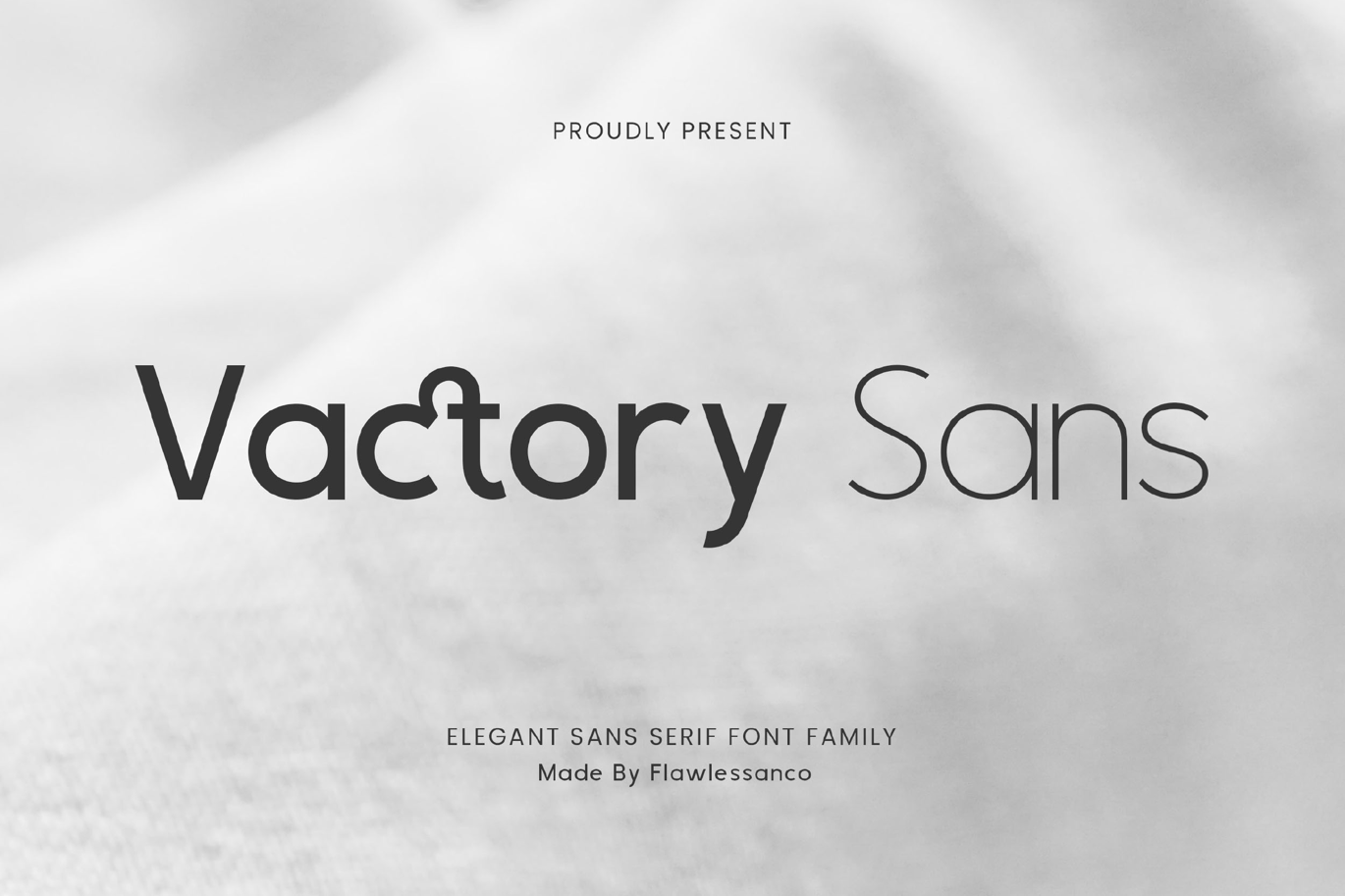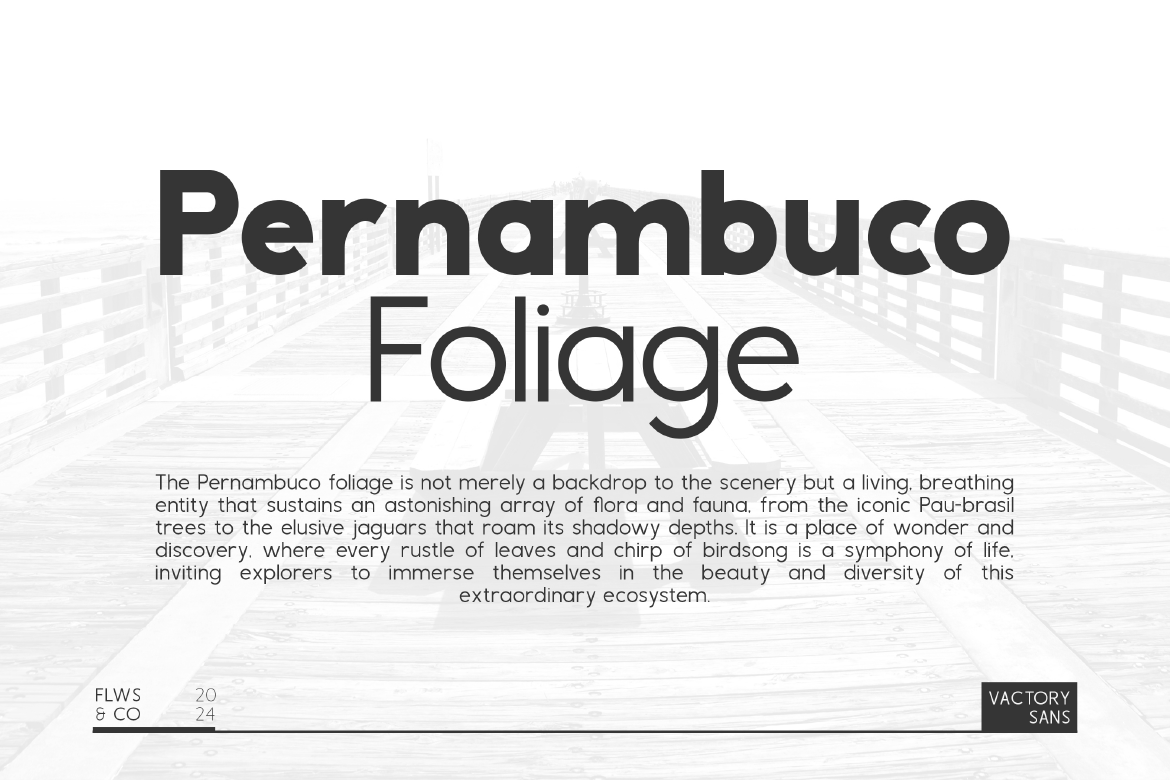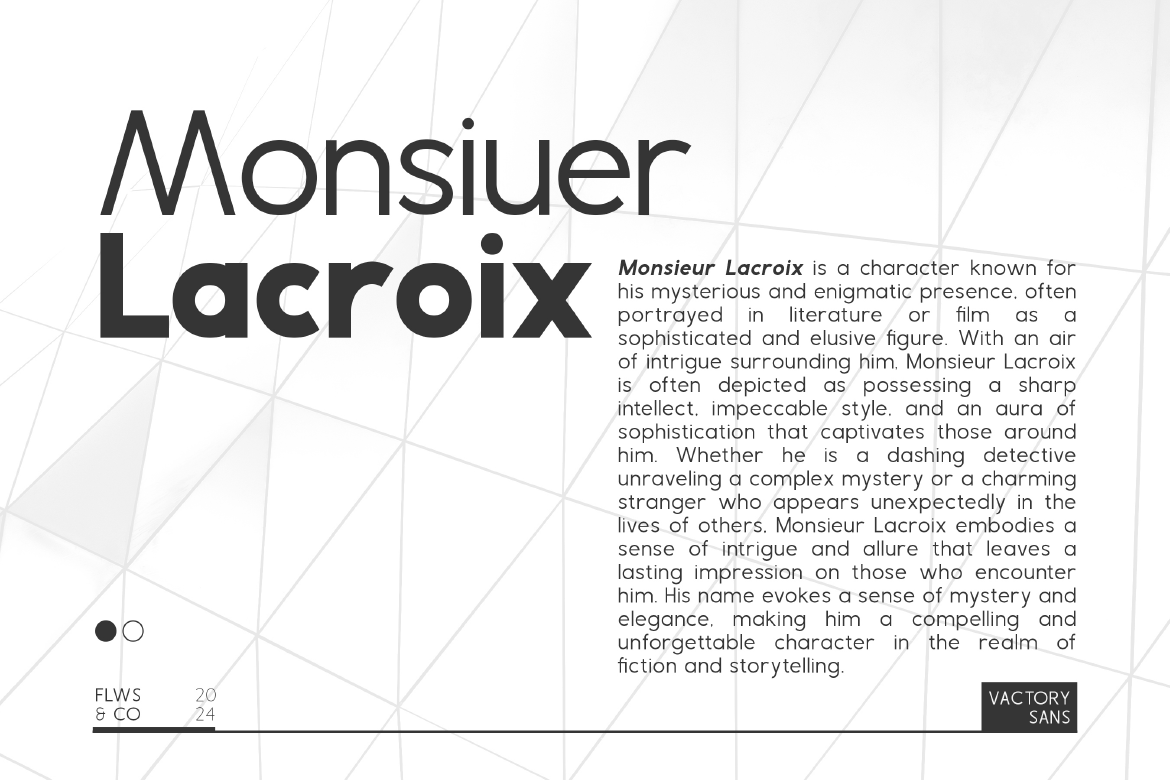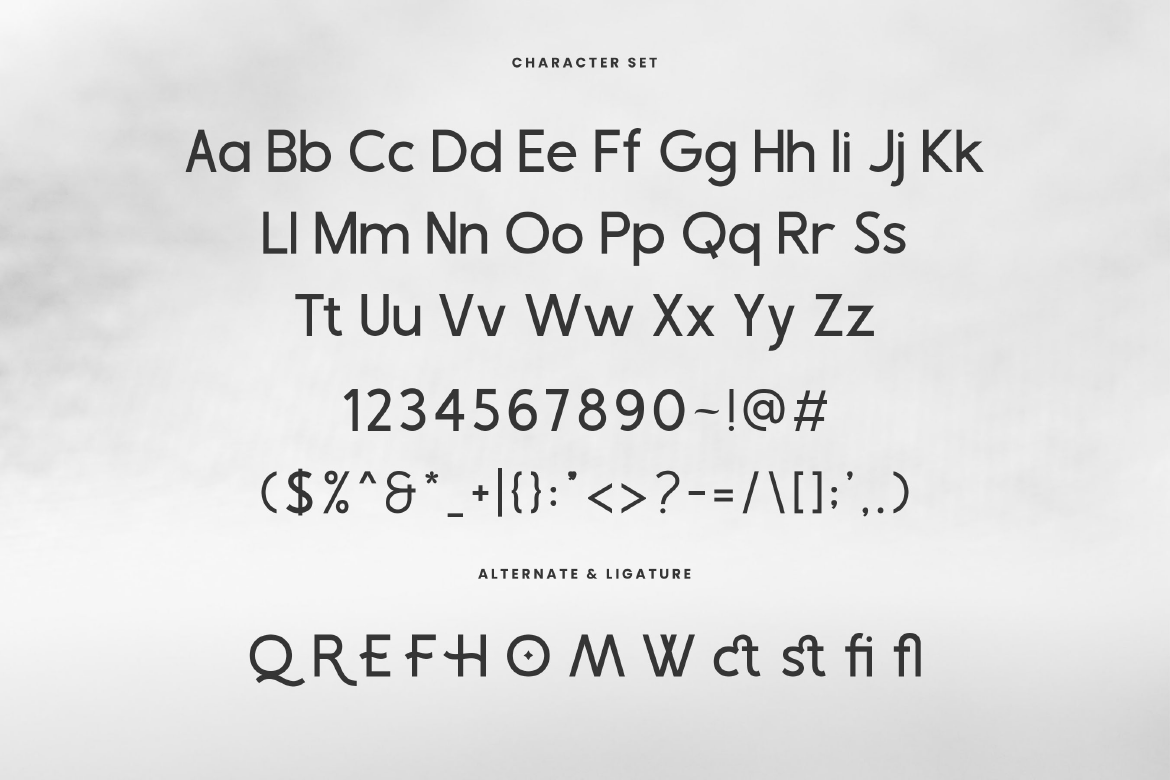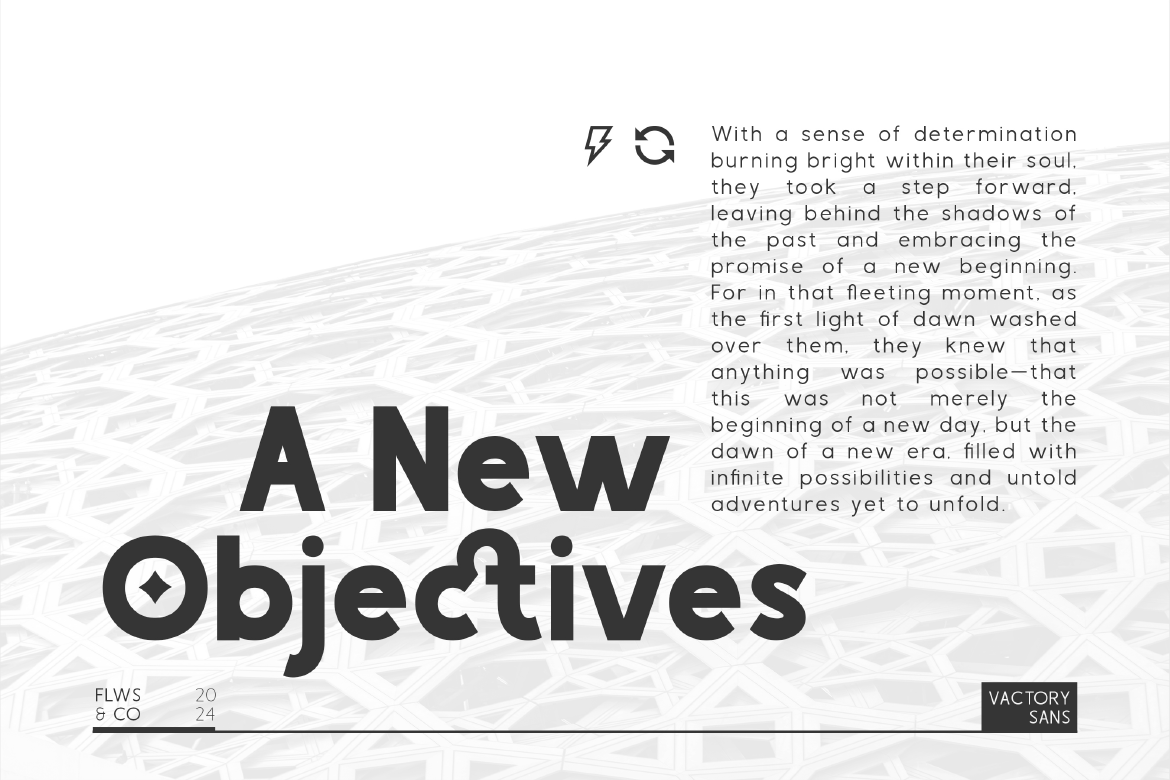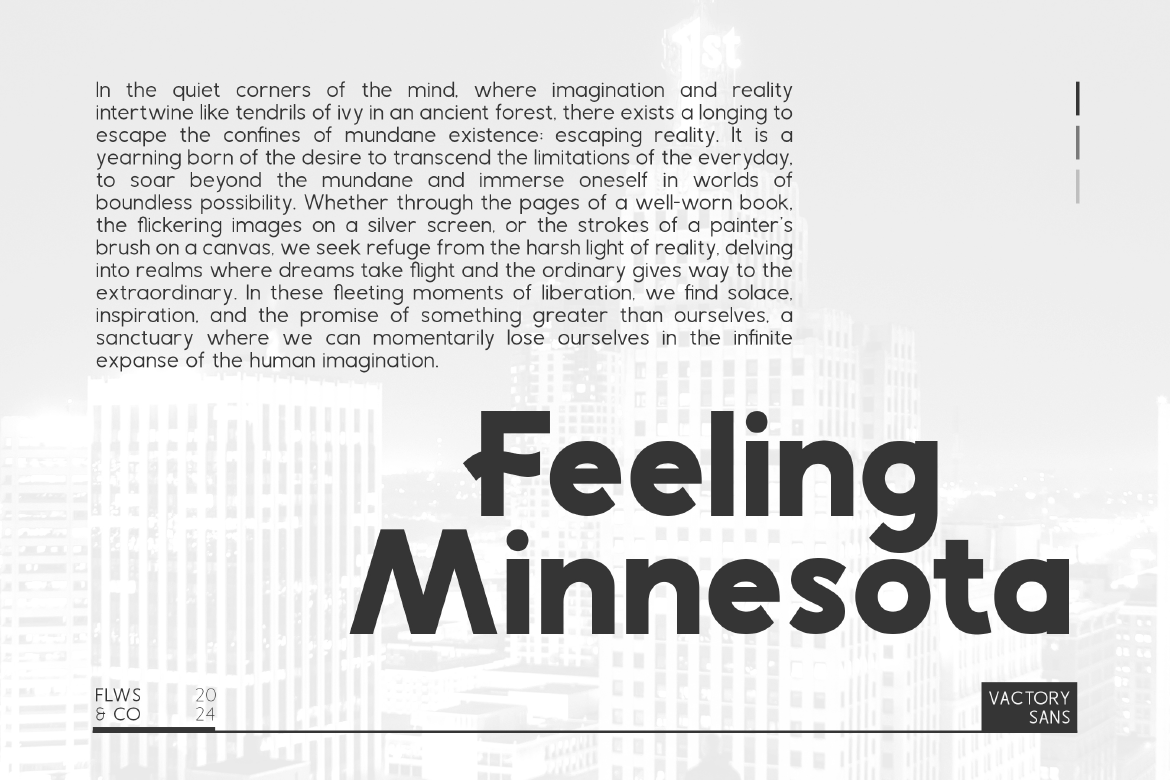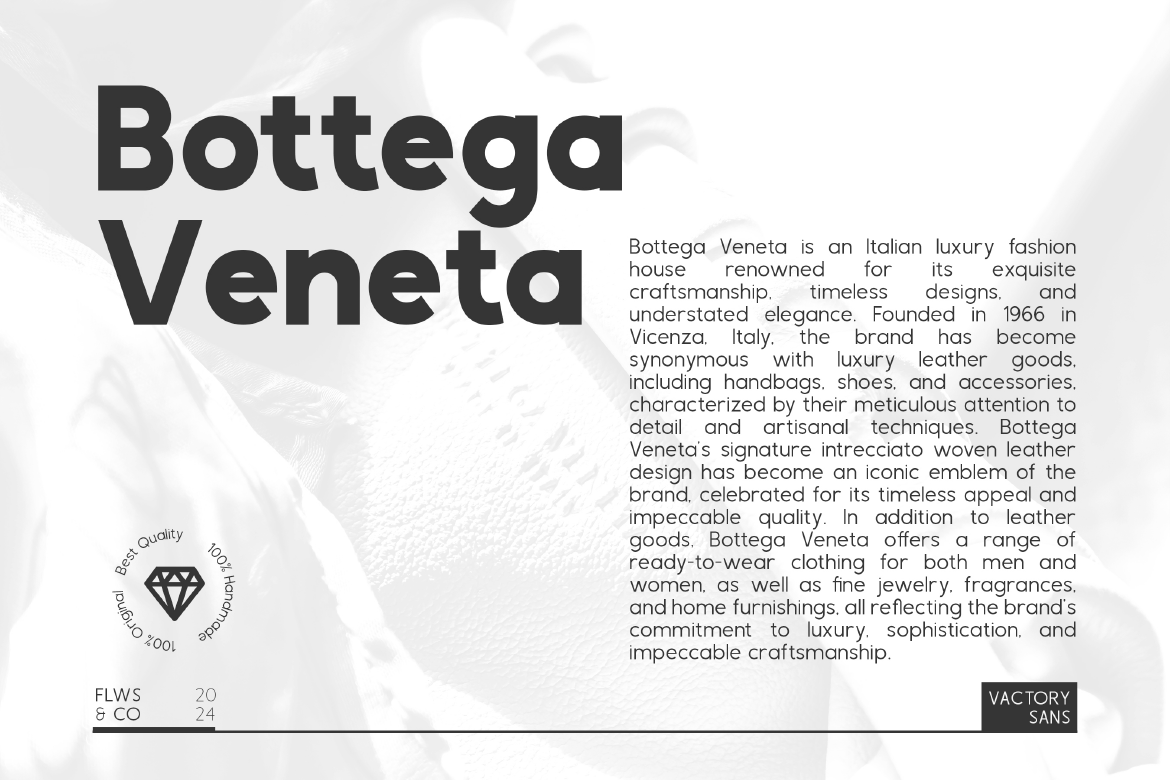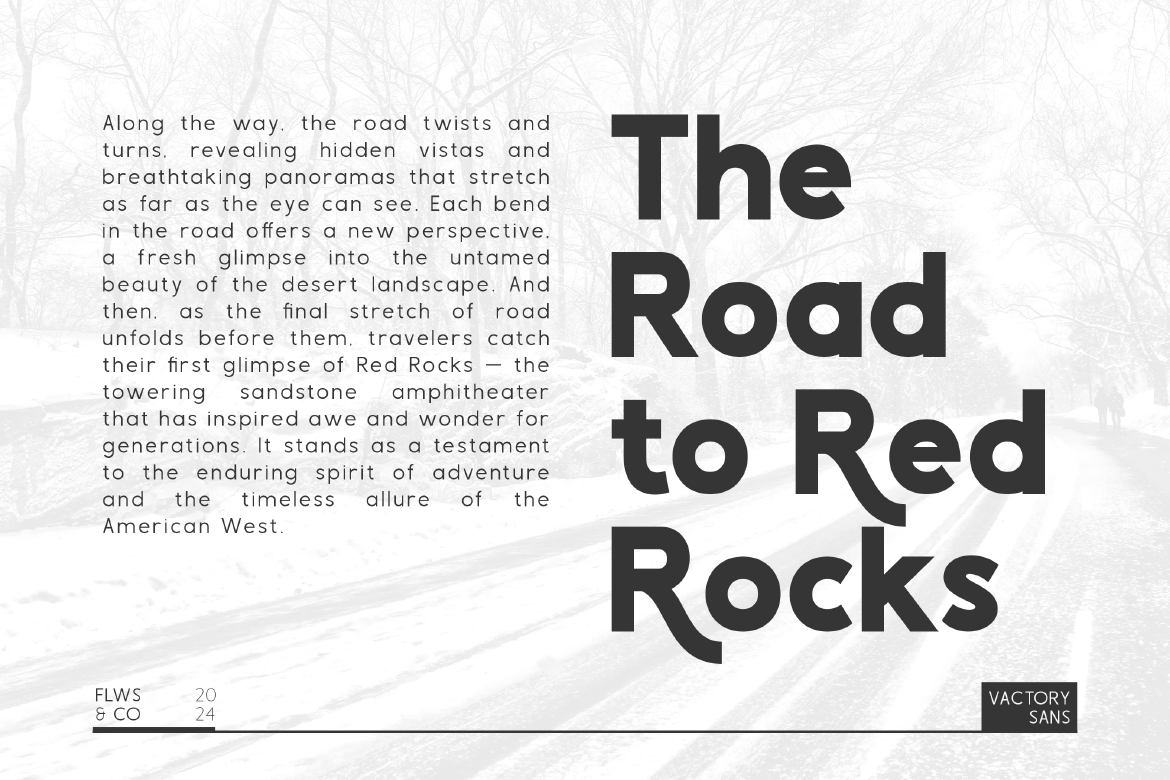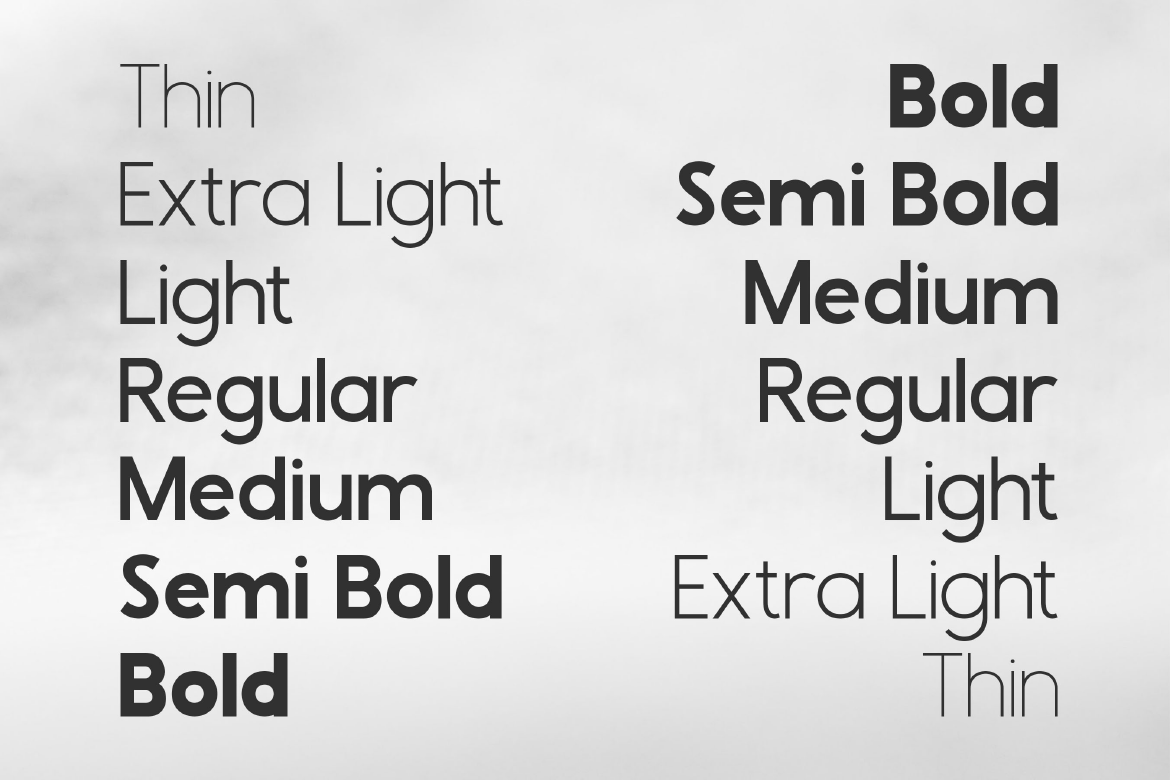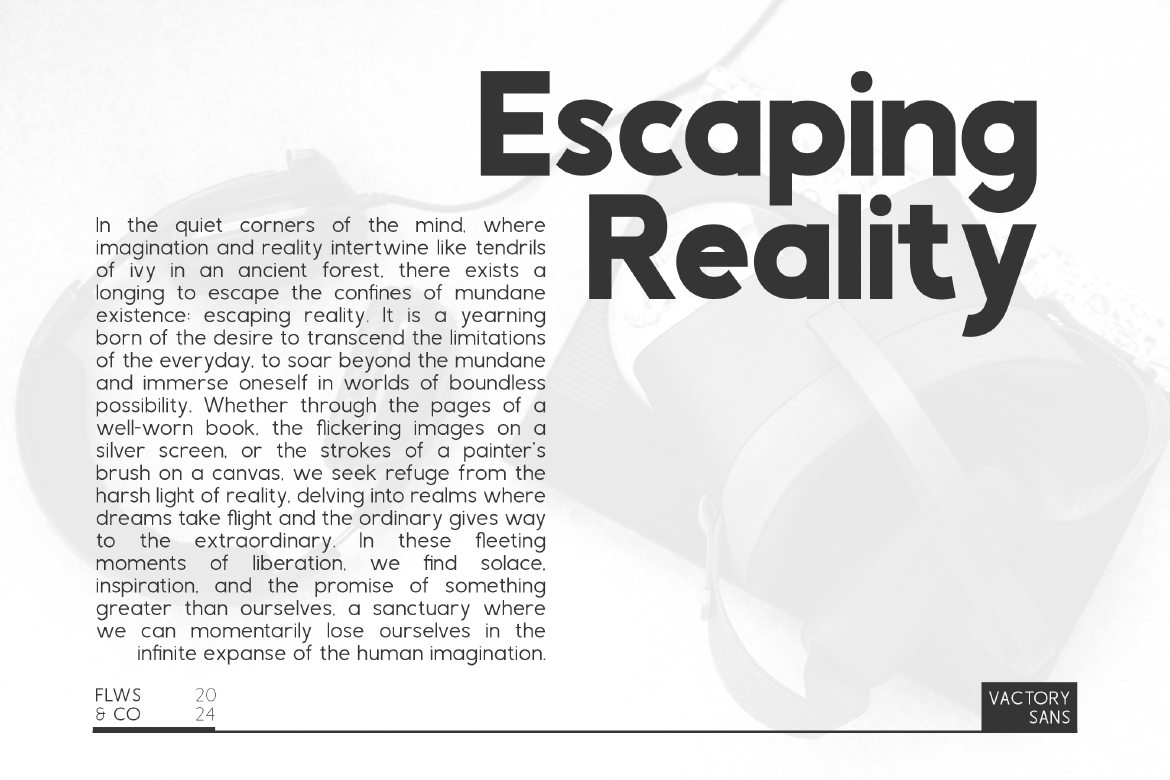
Vactory Sans – Family Sans Serif Font
Introducing Vactory Sans, an elegant sans serif font family that exudes sophistication and style. With its clean lines, geometric shapes, and subtle stroke variations, Vactory Sans is perfect for creating a modern and refined look for your branding, web design, and editorial projects. Vactory Sans consists of various weights ranging from thin to bold styles, including thin, extra light, light, regular, medium, semi-bold, and bold.